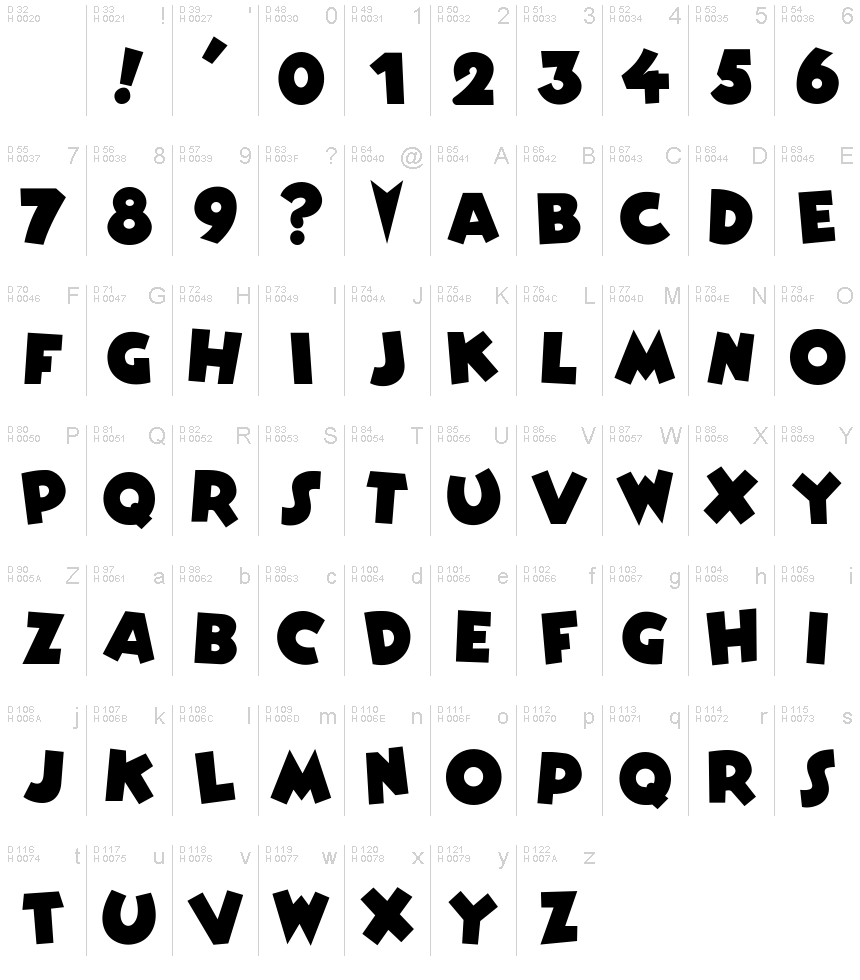
Magic English
The "Magic English" font by Luke Aldric is a captivating display typeface that evokes a whimsical, cartoon-inspired aesthetic. Featuring bold, tapered letterforms with uniquely rotated lowercase characters, this font exudes a sense of playfulness and charm. The sharp, angular shapes and distinctive character details lend a touch of retro-inspired flair, making it an engaging choice for a variety of creative projects.
This versatile font shines in eye-catching headlines, playful branding, and vibrant children's media. Its bold personality and distinctive style make it a compelling option for projects aiming to capture a sense of childlike wonder, from storybooks and educational materials to product packaging and event promotions.